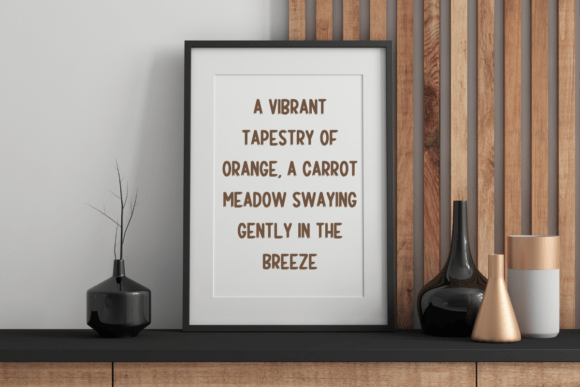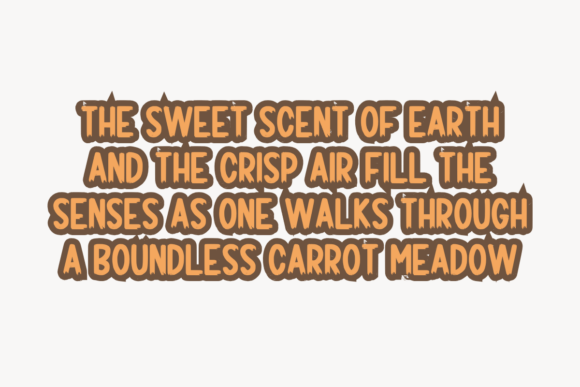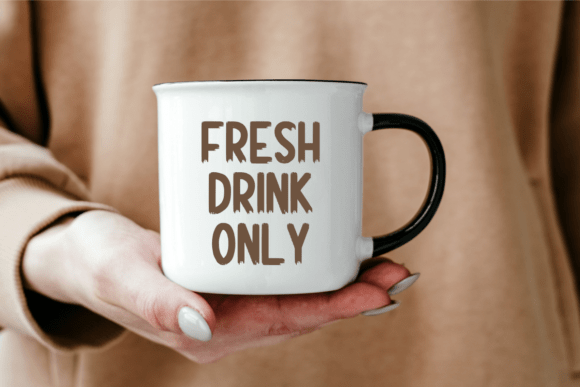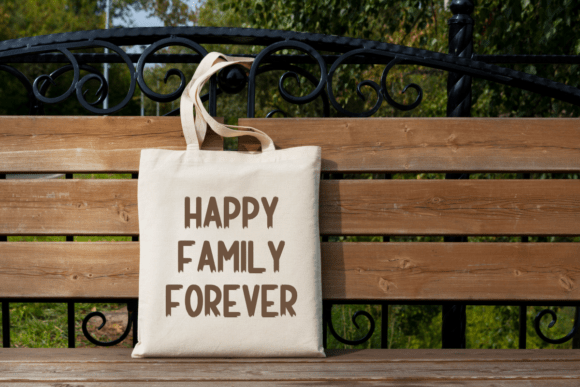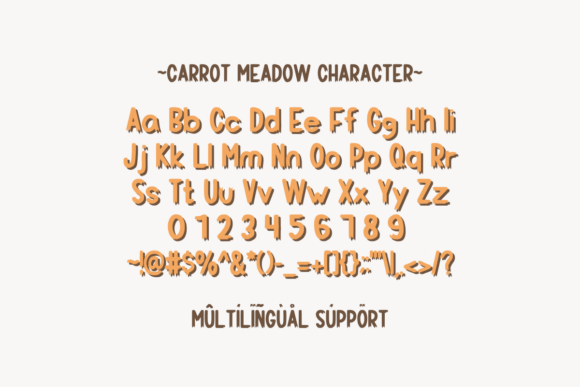
Introducing Carrot Meadow Font: The Perfect Addition to Your Design Toolkit
Are you tired of using the same old fonts in your designs? Do you want to add a touch of personality and whimsy to your projects? Look no further than Carrot Meadow Font, a fun and playful typeface that’s bursting with charm and character. In this article, we’ll take a closer look at what makes Carrot Meadow Font so special and how you can use it to elevate your designs.
A Font that’s Full of Personality
Carrot Meadow Font is a bold and cheerful typeface that’s perfect for designers who want to add a little romance and joy to their projects. Its playful letterforms are designed to bring a smile to your face, making it ideal for love-themed designs, posters, greeting cards, and any other project that needs a touch of whimsy. Whether you’re creating a wedding invitation, a Valentine’s Day card, or a social media post, Carrot Meadow Font is sure to make your design stand out.
Key Features of Carrot Meadow Font
• Bold and Cheerful Letterforms: Carrot Meadow Font features bold and cheerful letterforms that are sure to grab attention.
• Playful and Whimsical: This font is perfect for designers who want to add a touch of playfulness and whimsy to their designs.
• Perfect for Love-Themed Designs: Carrot Meadow Font is ideal for love-themed designs, including wedding invitations, Valentine’s Day cards, and more.
• Easy to Read: Despite its playful nature, Carrot Meadow Font is easy to read, making it perfect for use in a variety of design projects.
How to Use Carrot Meadow Font in Your Designs
Carrot Meadow Font is a versatile typeface that can be used in a variety of design projects. Here are a few ideas to get you started:
• Wedding Invitations: Add a touch of romance and whimsy to your wedding invitations with Carrot Meadow Font.
• Valentine’s Day Cards: Create custom Valentine’s Day cards that are sure to impress with this playful font.
• Posters and Flyers: Use Carrot Meadow Font to create eye-catching posters and flyers that are sure to grab attention.
• Greeting Cards: Add a touch of personality to your greeting cards with this fun and playful font.
Why Designers and Crafters Love Carrot Meadow Font
Carrot Meadow Font has quickly become a favorite among designers and crafters, and for good reason. Here are a few reasons why:
• Unique and Eye-Catching: This font is unlike anything else out there, making it perfect for designers who want to create unique and eye-catching designs.
• Versatile: This font can be used in a variety of design projects, from wedding invitations to posters and more.
Font Name Carrot Meadow Font
Author Letterayu
If you’re looking for a font that’s fun, playful, and full of personality, look no further than Carrot Meadow Font. With its bold and cheerful letterforms, this typeface is perfect for love-themed designs, posters, greeting cards, and any other project that needs a touch of romance and joy. So why wait? Add a pop of happiness to your creations with Carrot Meadow Font today!